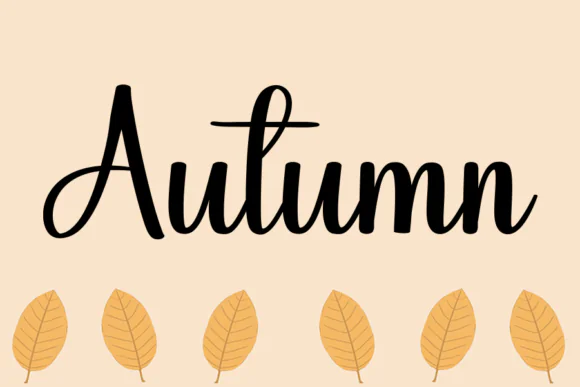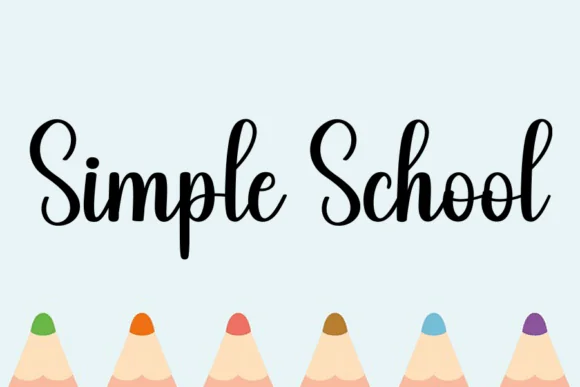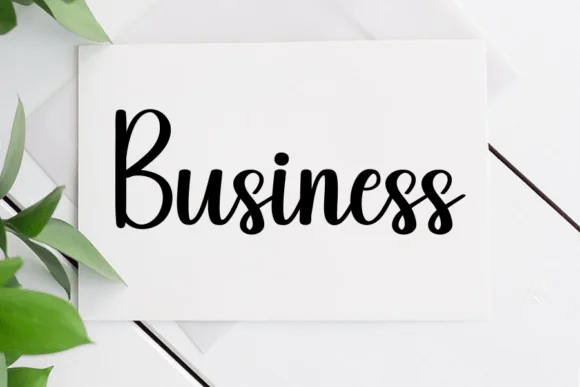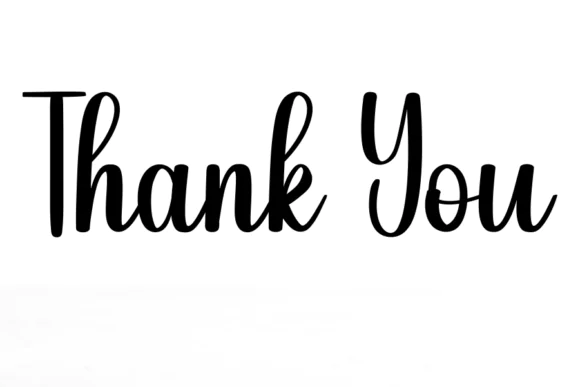
Ladybug Cursive Handwritten Font – Sweet Romantic Script Typeface for Branding, Logos, Wedding Designs, Greeting Cards, Fashion Lookbooks, Marketing Promotions & Elegant Creative Projects
Create beautiful, joyful, and romantic designs with Ladybug Font, a sweet cursive handwritten typeface made for elegant yet casual creative projects. Its gentle handwritten flow gives your text a soft, charming, and stylish look, making it perfect for designs that need a personal, graceful, and fashionable touch.
This font is a great choice for branding projects, logo designs, wedding stationery, greeting cards, fashion materials, lookbooks, marketing promotions, social media graphics, packaging, labels, quotes, invitations, and decorative typography. The cursive style adds warmth and personality while still keeping the overall design clean, fancy, and easy to use.
Whether you are creating romantic wedding invitations, boutique branding, feminine logo designs, elegant product packaging, or stylish promotional graphics, Ladybug Font helps your designs feel more refined, expressive, and memorable. It is especially useful for designers, crafters, small business owners, digital product sellers, wedding creators, and print-on-demand designers looking for a beautiful handwritten script font.
Branding, logos, wedding invitations, save-the-date cards, greeting cards, fashion lookbooks, boutique designs, marketing promotions, product packaging, labels, stickers, social media graphics, romantic quotes, feminine designs, printable products, craft projects, and elegant typography layouts.
• Sweet cursive handwritten font style
• Gentle, joyful, and romantic appearance
• Elegant but still casual and easy to use
• Great for branding, logos, and wedding designs
• Suitable for fashion, lookbooks, and promotional graphics
• Adds a fancy handwritten touch to creative projects
• Perfect for digital, printable, and craft-based designs